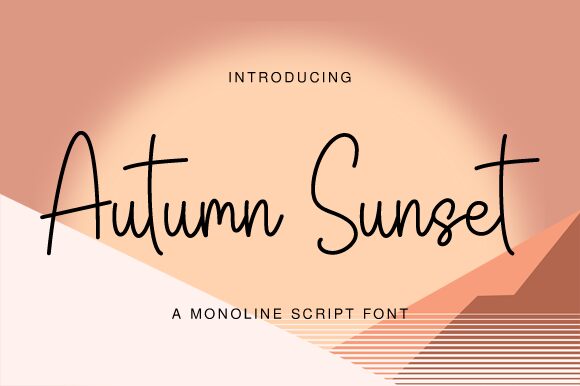
Autumn Sunset by Nirmala Creative is a captivating handwritten font with an extra-light weight that evokes the ephemeral beauty of the season's twilight. Its flowing, graceful lines and organic curves are reminiscent of a gentle brush against paper, creating an intimate and personal touch in every character. The aesthetic charm of Autumn Sunset lies in its delicate balance between elegance and approachability, making it ideal for designs that require a touch of sophistication without losing the warmth of a personal hand.
Whether you're crafting wedding invitations, designing inspirational quotes, or branding artisanal products, Autumn Sunset's airy presence breathes life into your creative endeavors. With this font's versatility and stylish appearance, designers can effortlessly convey authenticity and artistry in their projects. Embrace the subtle allure of Autumn Sunset to enrich your design work with its distinct handwritten style that effortlessly stands out amidst the ordinary.